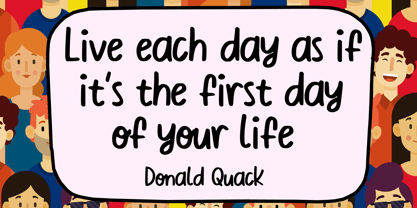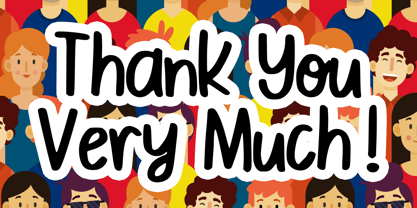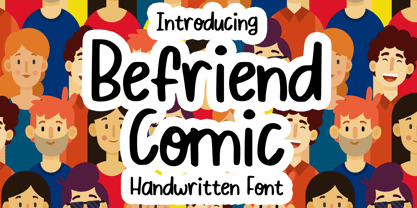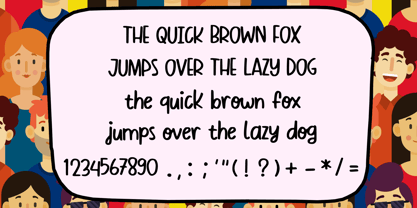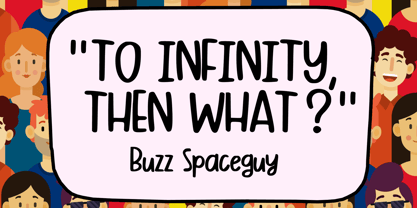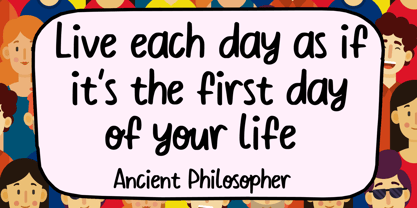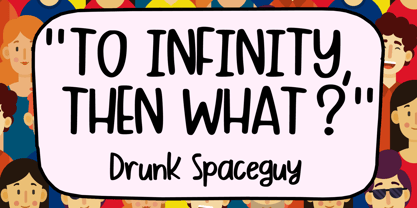
Befriend Comic
par Mvmet
La famille de polices Befriend Comic a été conçue par Gabriel Valentinus et publiée par Mvmet. Befriend Comic contient 1 styles. En savoir plus sur cette famille
Befriend Comic is a lively and whimsical font designed to bring joy to a variety of creative projects. Perfect for stickers, t-shirt graphics, eye-catching logos, magazine and book covers, comics, cartoon illustrations, and everyday text, this font infuses a playful spirit into your designs. With its unique character and versatility, Befriend Comic enhances your projects, making them stand out with a fun and captivating flair.
Concepteurs: Gabriel Valentinus
Fonderie actuelle: Mvmet